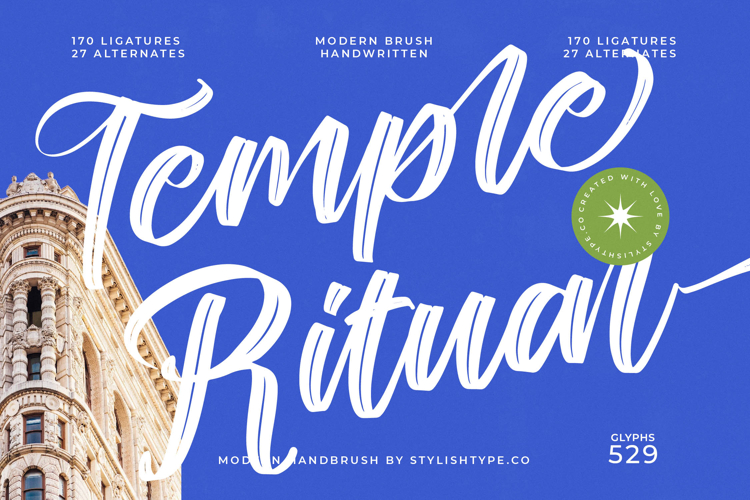
Temple Ritual - Modern Handbrush Font
Discover the transformative power of authentic brush artistry with Font Temple Ritual - Modern Handbrush Font Script. This captivating typeface masterfully blends the organic spontaneity of genuine hand-drawn strokes with a refined, modern sensibility. Its energetic flow and expressive character instantly convey a sense of bespoke elegance, making it ideal for designs demanding both warmth and sophisticated impact.
Crafted with meticulous attention to detail, Font Temple Ritual - Modern Handbrush Font Script boasts a truly fluid aesthetic, characterized by its high-contrast brushwork and artful connections. With an impressive array of 170 ligatures and 27 alternates, it offers extensive typographic flexibility, allowing designers to create unique and bespoke textual compositions that mimic true handwriting. This ensures authenticity and customization for every design brief.
Elevate your global presence effortlessly with Font Temple Ritual - Modern Handbrush Font Script. With its extensive multilingual support, Font Temple Ritual - Modern Handbrush Font Script adapts seamlessly across global markets, making it incredibly versatile for international projects. This crucial feature ensures your brand message resonates universally, maintaining professional consistency and cultural relevance across diverse linguistic landscapes, proving its value as a truly global asset.
Perfect for creating memorable impressions, Font Temple Ritual - Modern Handbrush Font Script is the ultimate selection for luxury branding, sophisticated packaging, elegant editorial design, event invitations, fashion labels, and impactful advertising. Its distinctive style guarantees to distinguish your brand and captivate audiences, lending a touch of exclusive craftsmanship to any visual communication.